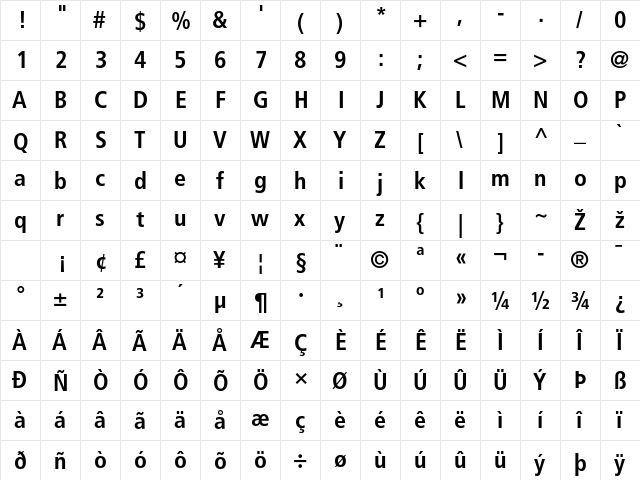
Frutiger LT 67 BoldCn Regular
| Designer | Adrian Frutiger |
Design Context for Frutiger LT 67 BoldCn Typeface
Frutiger LT 67 BoldCn takes a measured approach to typography — its balanced proportions and neutral character make it a reliable workhorse for both digital and print work. Its bold stroke weight gives it real presence on the page.